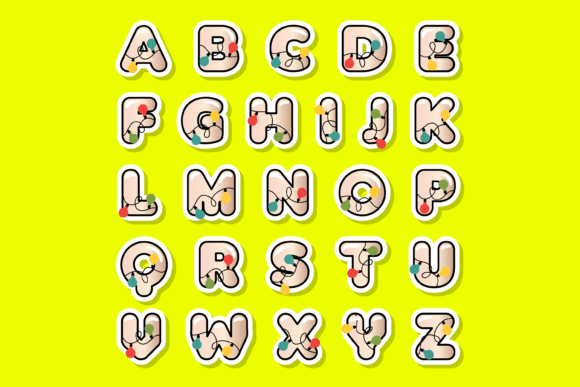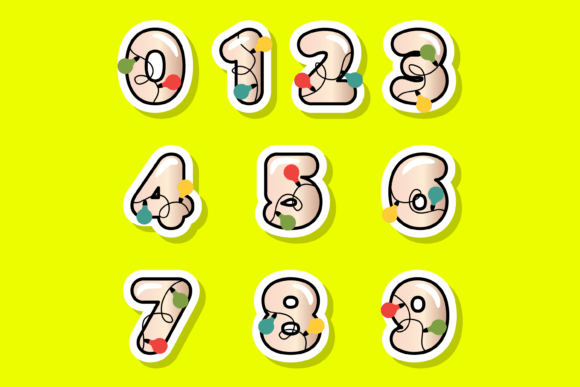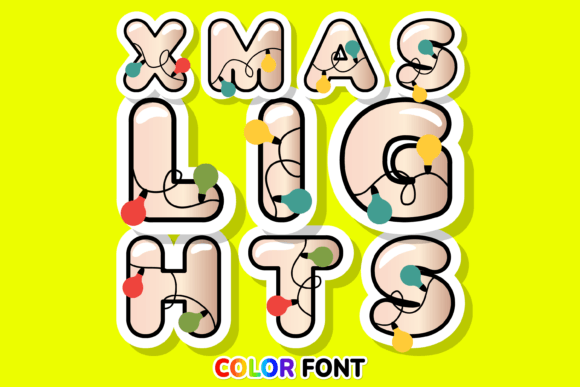
About Xmas Lights Font
Xmas Lights is an enchanting color font created specifically for Christmas-themed designs. It brings the magical glow of festive lights to your projects and adds a delightful touch of holiday spirit.
With its vibrant colors and playful design, Xmas Lights is perfect for a wide range of creative applications. Whether you’re designing custom holiday cards, crafting DIY decorations, or creating digital graphics, this font will elevate your creations and make them truly special.
Xmas Lights is designed as an OpenType-SVG font, which means it supports color variations and textures. It allows you to create vibrant and eye-catching designs with the appearance of glowing Christmas lights. Please note that some older software or non-compatible programs may display the font as black or in a single color, so it’s best to use it in programs that support OpenType-SVG fonts.
Unleash your creativity and let Xmas Lights add a magical touch to your Christmas projects. Explore the various possibilities and create custom designs, greeting cards, festive banners, social media graphics, and more. Enjoy the festive spirit and spread joy with the help of this incredible color font, Xmas Lights.